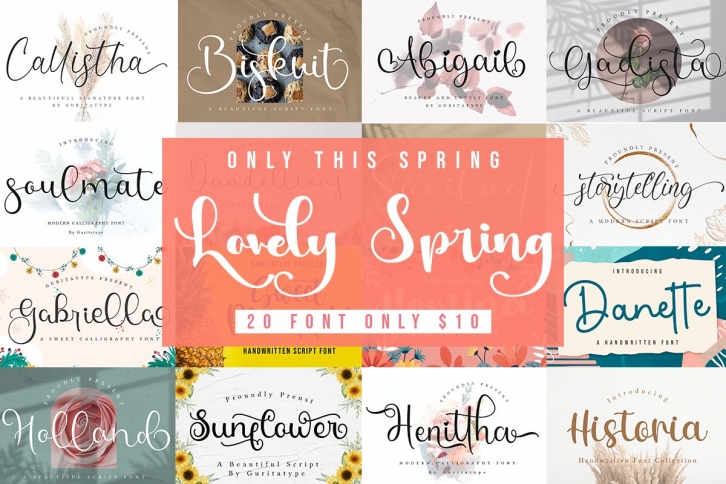
Lovely Spring is a beautiful font that was designed by GuritaType. It's a great choice for designers and creatives who need such a font. It was released on February 13, 2022 and the file size is 2.29 MB. Lovely Spring may give a more youthful, expressive and casual look to your project. It is a very beautiful, refined, elegant, and high-quality font.